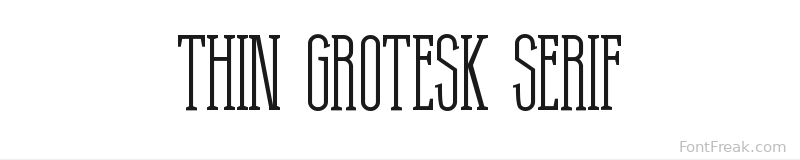
Thin Grotesk Serif
About Thin Grotesk Serif
Thin Grotesk Serif by Galdino Otten Fonts is a captivating serif typeface that merges classic elegance with modern minimalism. This font features a refined stroke weight, offering a delicate appearance that enhances readability while maintaining an air of sophistication. The contrast between the thin strokes and the subtle serifs creates a visually appealing dynamic, making it suitable for various design applications. The spacing is thoughtfully crafted, ensuring that each letter stands out, resulting in a cohesive flow that is both stylish and functional.
This versatile font excels in a variety of use cases. It is particularly well-suited for editorial layouts, such as magazine headlines and articles, where its striking presence can draw readers in. Additionally, Thin Grotesk Serif shines in branding projects, making it an excellent choice for logos and business cards that require a touch of refinement. Restaurant menus can also benefit from this font's aesthetic, providing an inviting atmosphere that enhances the dining experience. It can even elevate wedding invitations, adding a sense of elegance and timelessness to special occasions.
Thin Grotesk Serif is ideal for graphic designers, small business owners, and content creators who seek a distinctive font that captures attention without overwhelming the viewer. Its free availability as a freeware license allows creatives to access this stylish typeface without any financial constraints.
What sets Thin Grotesk Serif apart is its unique blend of contemporary design elements with traditional serif characteristics, making it a standout choice for anyone looking to elevate their typographic projects. For those interested in incorporating this sophisticated typeface into their work, the Thin Grotesk Serif font free download is an opportunity not to be missed.